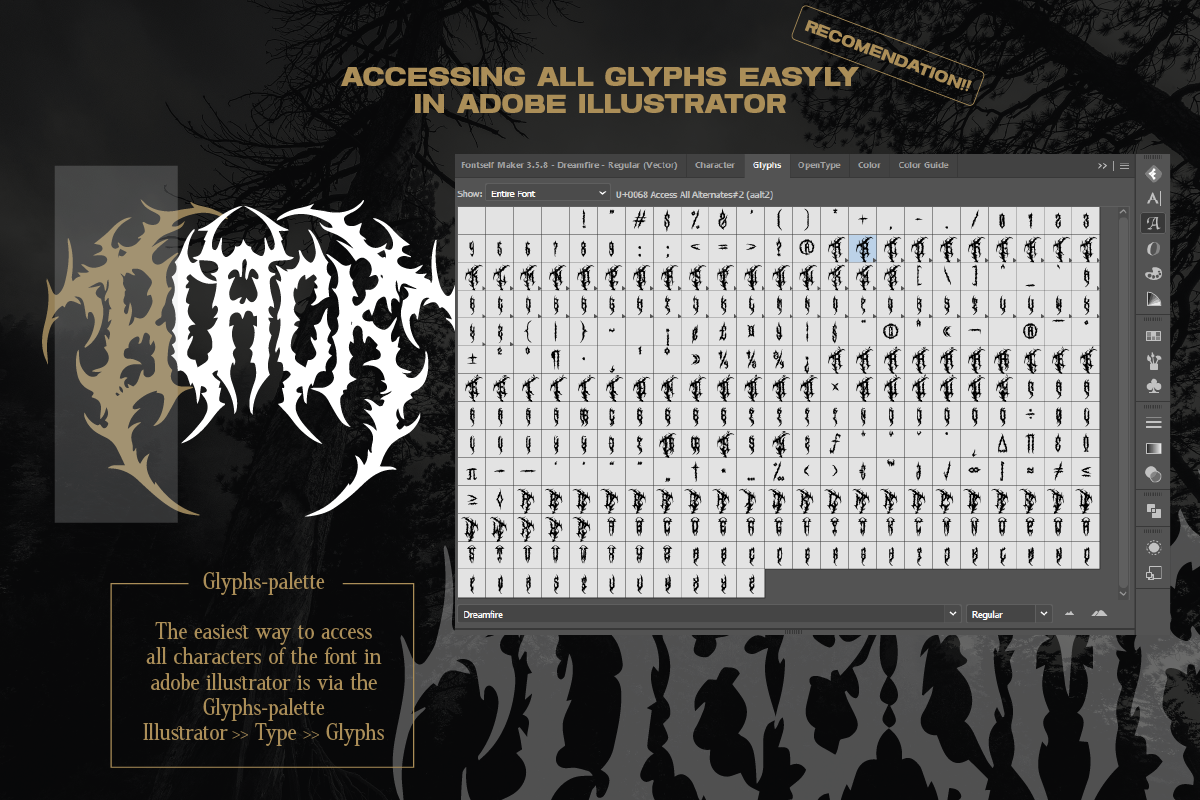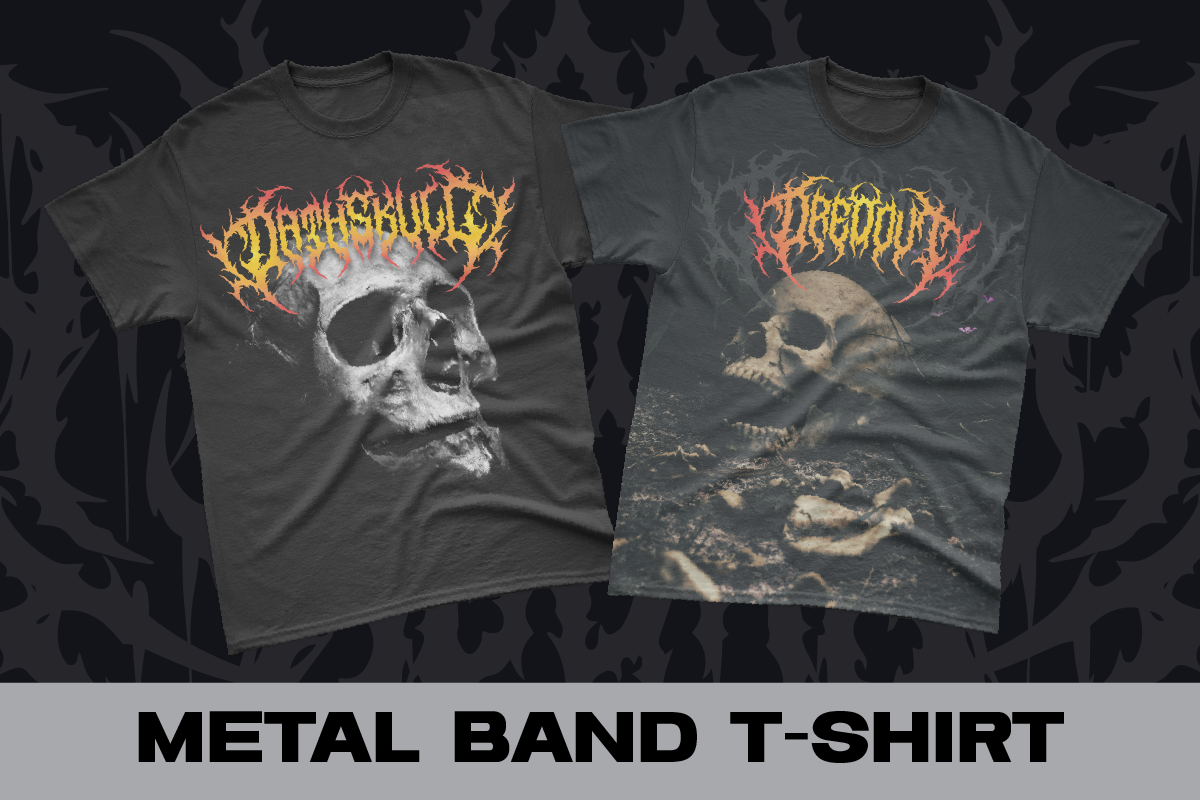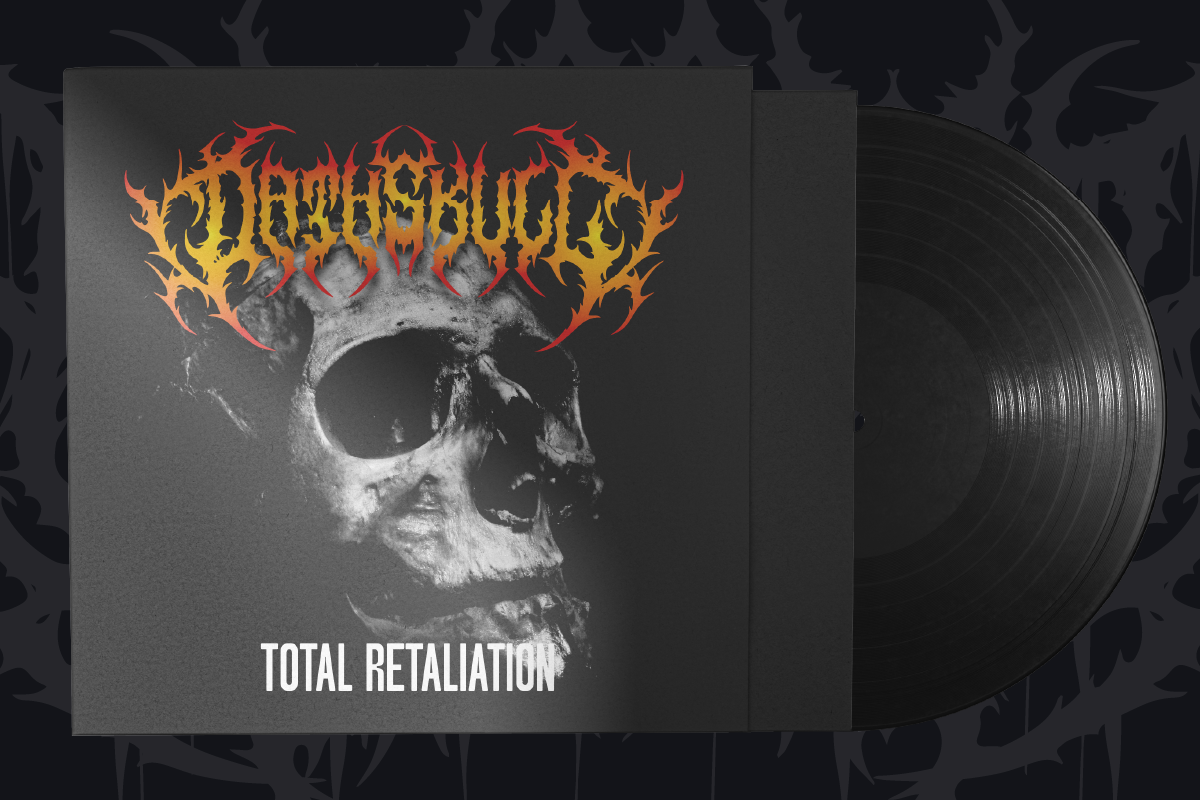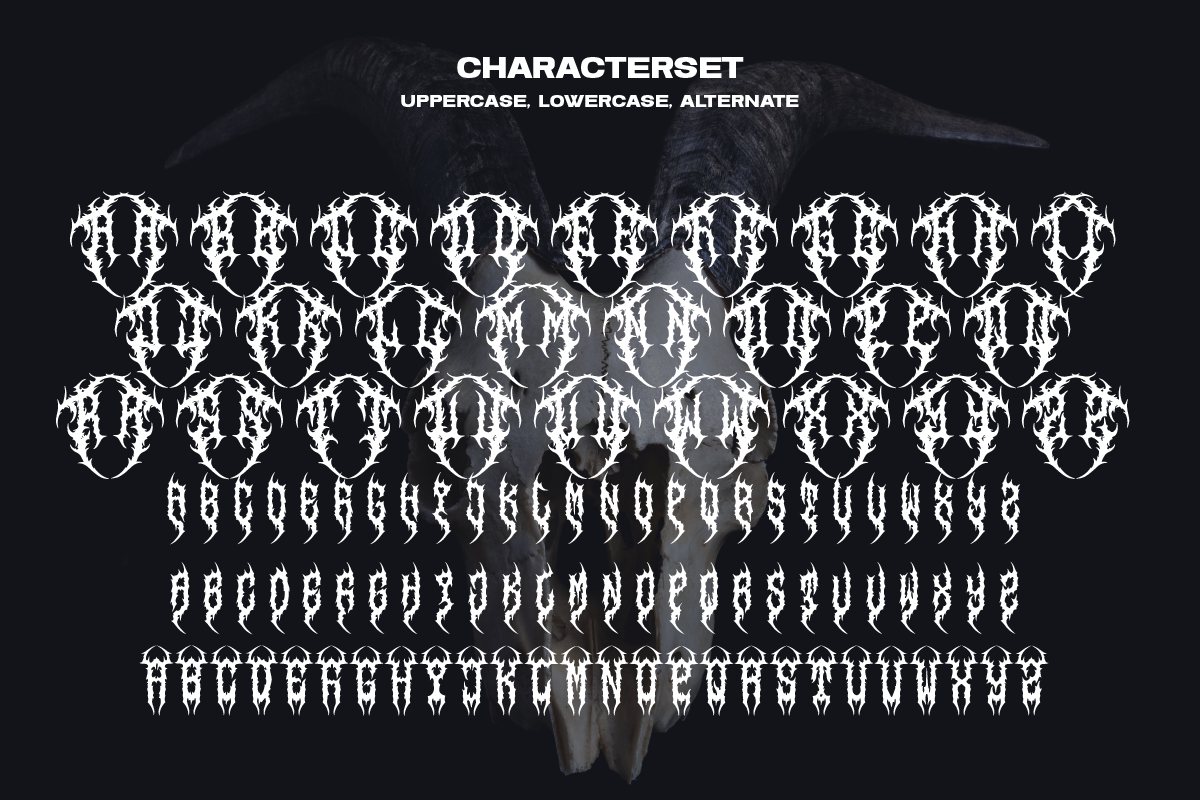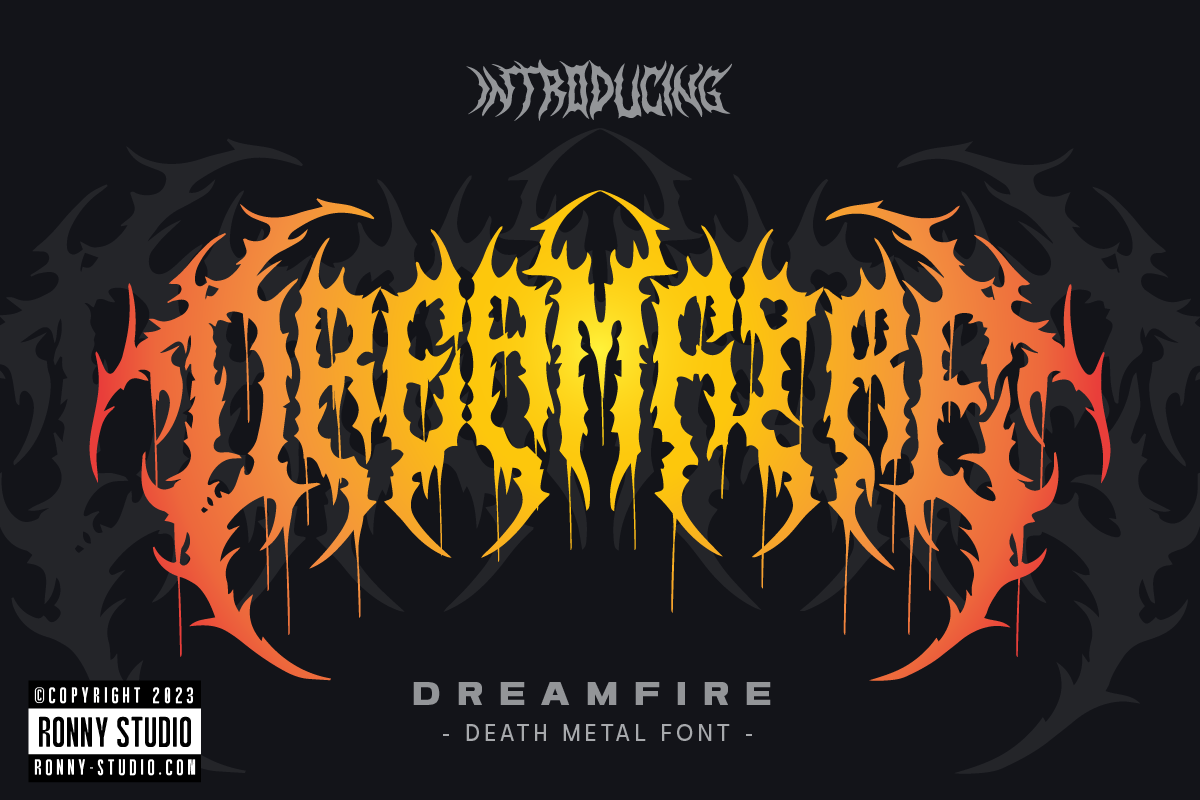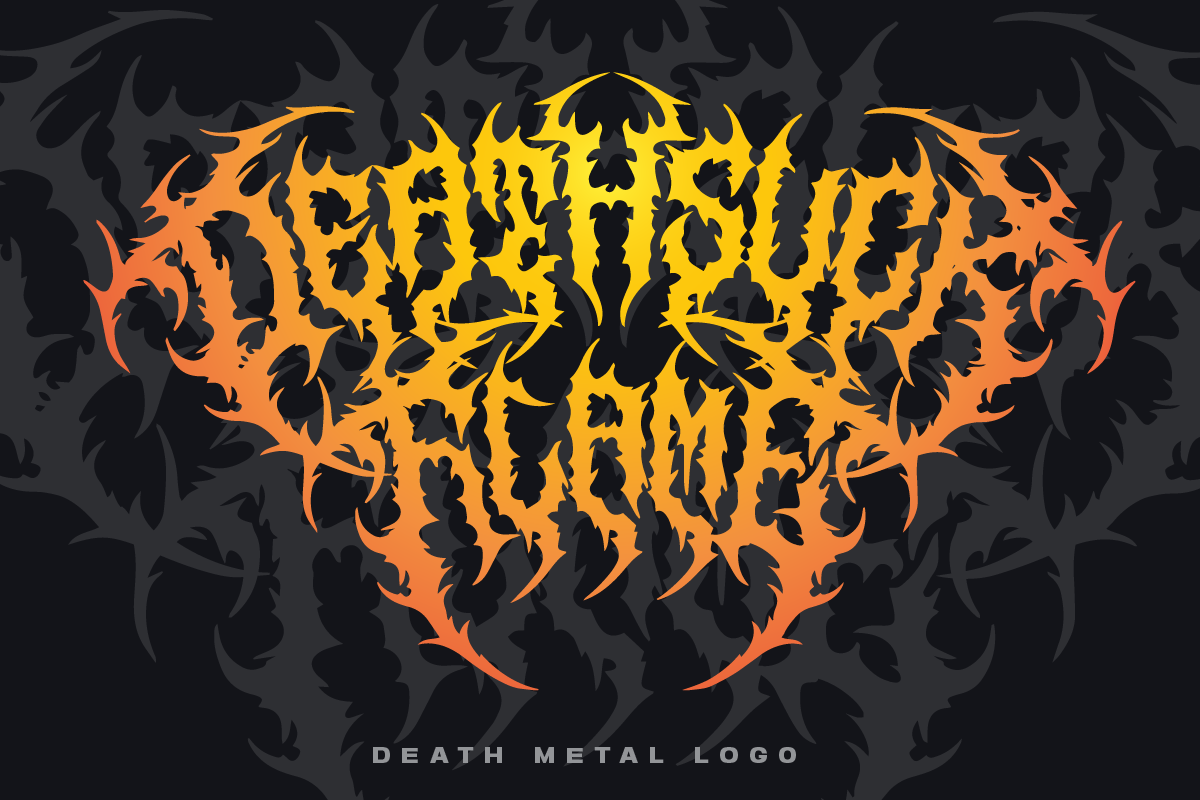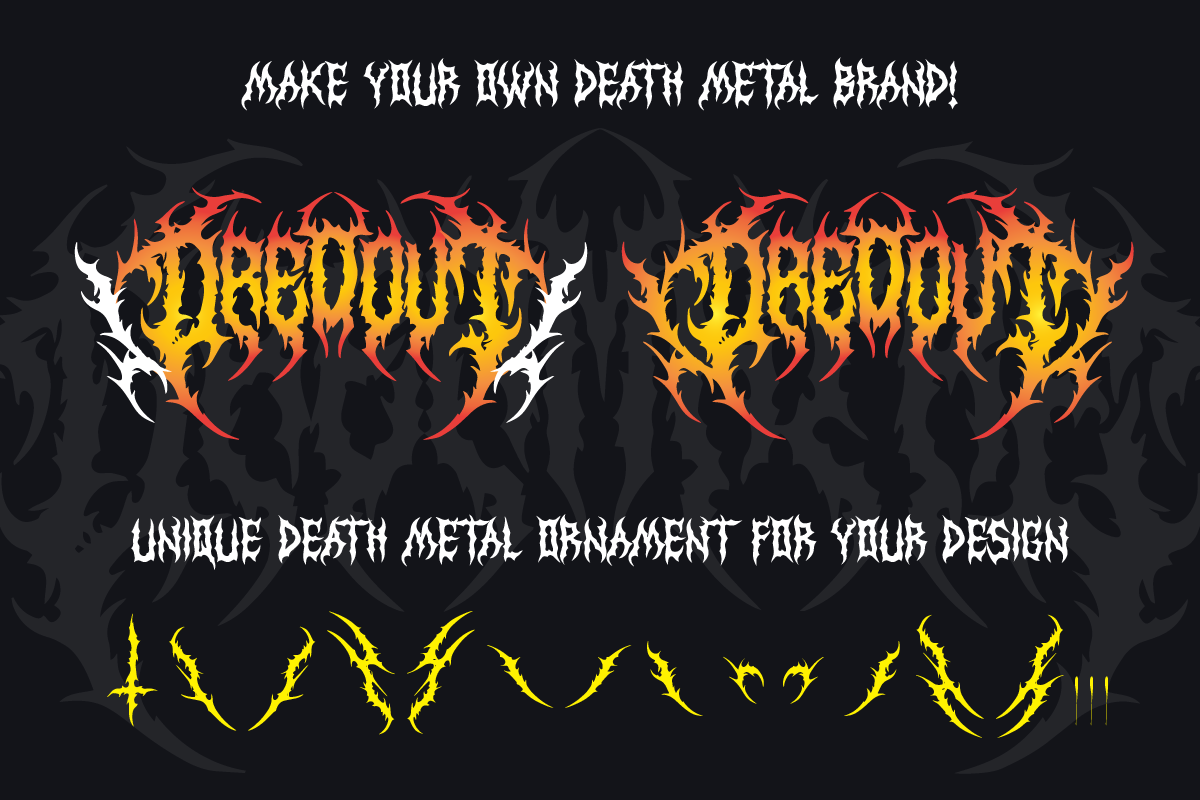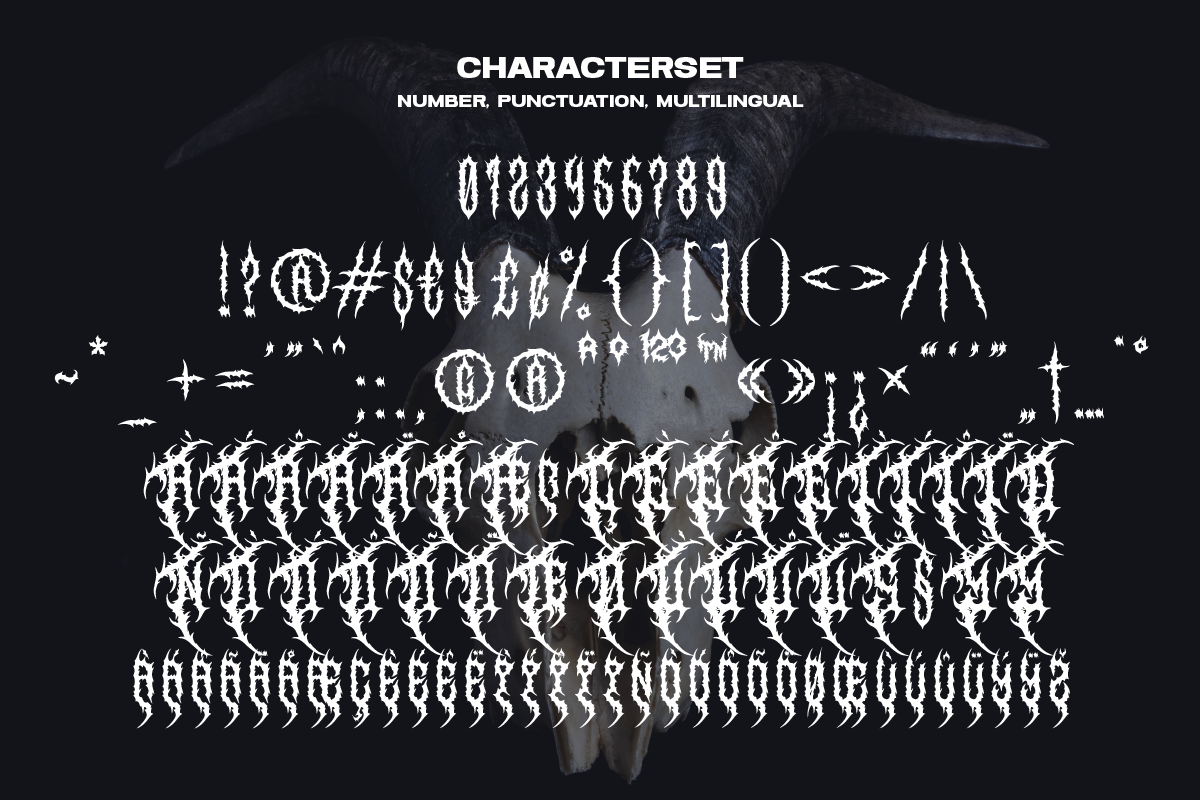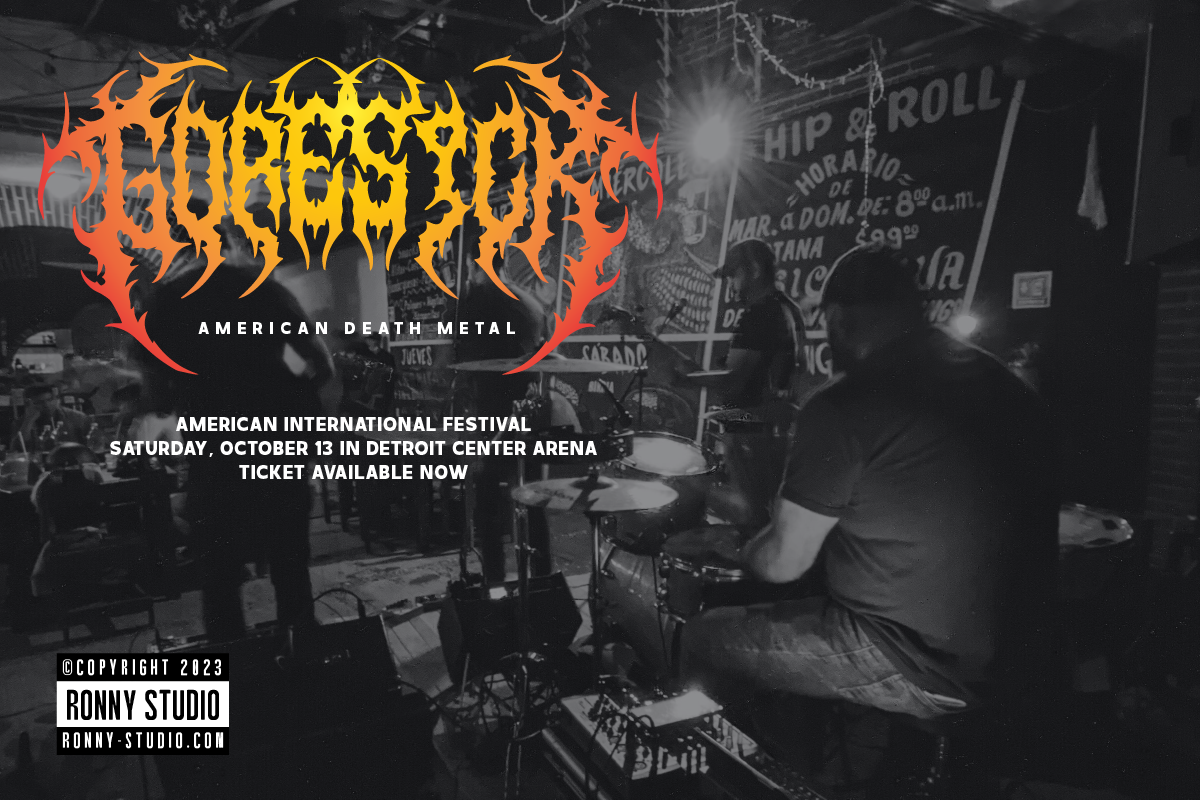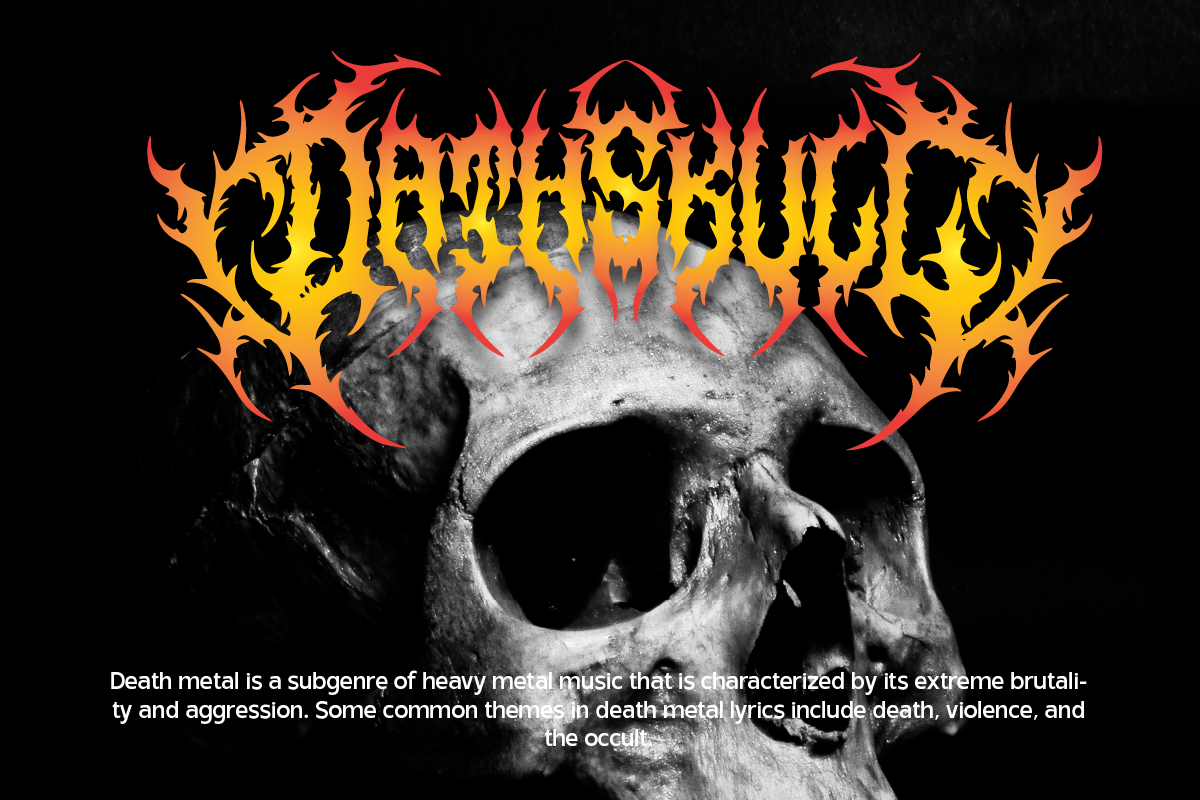
Dreamfire Death Metal Font
Dreamfire – Death Metal Font for Intense, Bold, and Underground Designs
Introducing Dreamfire, a powerful death metal font designed to bring a fierce and rebellious edge to your creative projects. With its sharp, jagged letterforms and dynamic strokes, Dreamfire captures the raw energy of underground metal culture. Ideal for band logos, album covers, posters, merchandise, and extreme branding, this font infuses every design with boldness and attitude.
Its gothic and aggressive style makes it perfect for designs that demand to stand out and command attention.
- Death Metal Style – Features bold, distorted characters with a raw and rebellious vibe.
- Complete Character Set – Includes uppercase, lowercase, numerals, punctuation, and multilingual support.
- PUA Encoded – Access all special characters and alternates without extra design software.
- Versatile Applications – Suitable for music branding, album artwork, posters, apparel, and social media designs.
- Death metal and underground band logos
- Album covers, tour posters, and band merchandise
- Extreme sports branding and edgy product packaging
- Gothic and dark-themed designs
- Social media graphics and marketing for the metal scene
- Projects that require bold, aggressive, and impactful typography
Ignite your design projects with the raw power and intensity of Dreamfire.